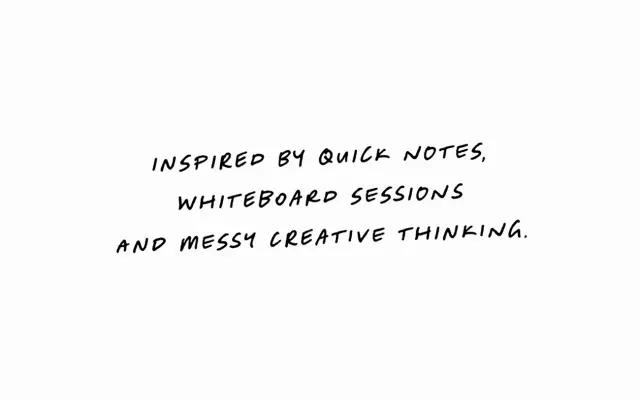
Notemaker's Mark
A casual handwriting script modelled on spontaneous notebook scribbles, with forward-leaning letterforms designed to feel energetic and approachable.
Built around the aesthetic of notes written in the moment rather than polished penmanship, the typeface carries natural inconsistencies and a slight forward lean that give it a sense of movement. It suits branding, packaging, social content and editorial work where an informal human touch is needed without sacrificing legibility. The relaxed character makes it a practical choice for lifestyle brands and creative projects that want personality over precision.
Informal, forward-leaning letterforms modelled on spontaneous handwritten notes and scribbles; sits clearly in the casual handwriting script subcategory rather than formal calligraphy or brush script.